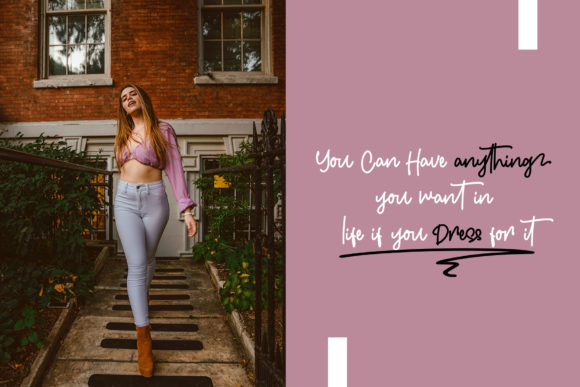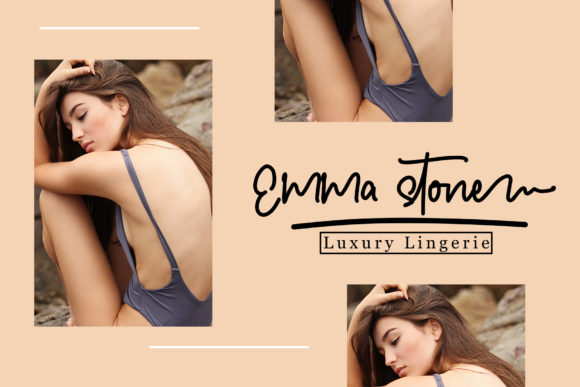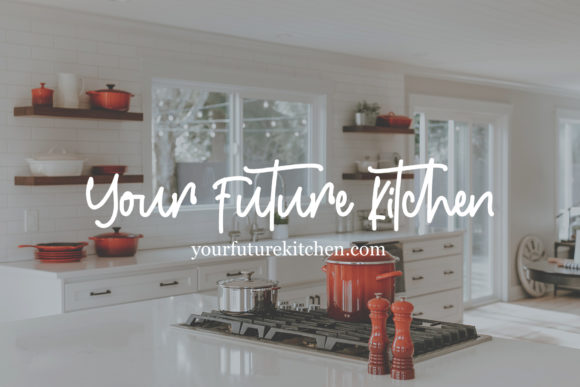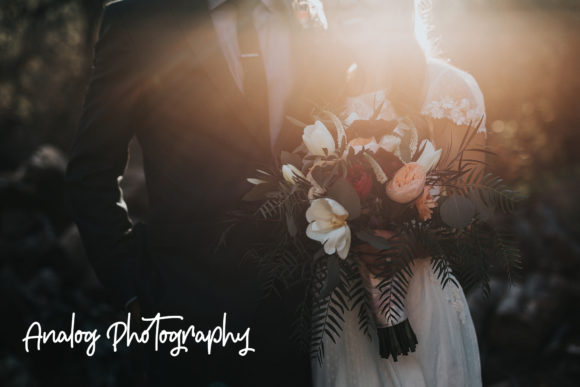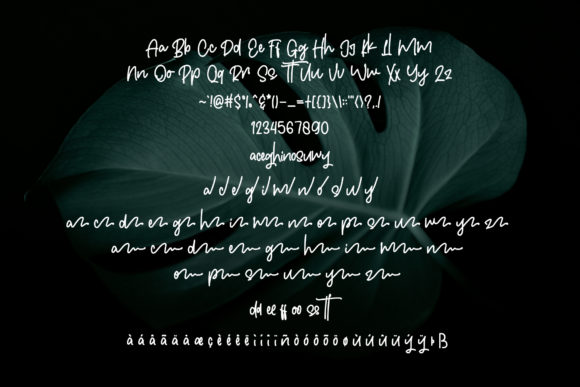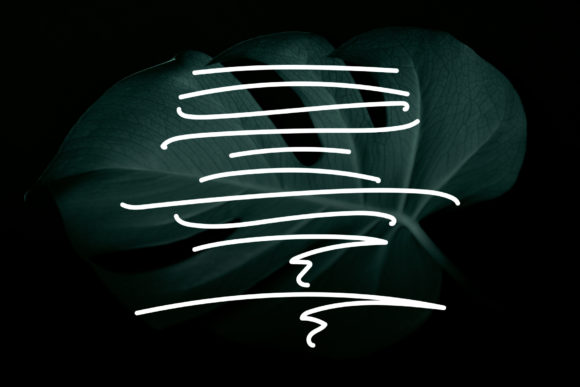
Introducing Colintha Font: The Sweet and Cool Handwritten Font You Need
Are you tired of using the same old fonts in your designs? Do you want to add a touch of uniqueness and personality to your projects? Look no further than Colintha Font, a sweet and cool handwritten font that’s sure to inspire your creativity. In this article, we’ll dive into the world of Colintha Font, exploring its features, benefits, and uses, and why it’s a must-have for designers and crafters alike.
What is Colintha Font?
Colintha Font is a modern, handwritten font designed to add a touch of elegance and sophistication to your designs. Its unique style is characterized by smooth, flowing lines and a distinctive flair that’s both sweet and cool. Whether you’re working on a branding project, a craft, or a digital design, Colintha Font is the perfect choice for adding a personal touch.
Key Features of Colintha Font
- Unique Style: Colintha Font boasts a one-of-a-kind design that’s sure to make your projects stand out from the crowd.
- Handwritten Look: The font’s handwritten style adds a touch of warmth and personality to your designs, making them more relatable and engaging.
- Contemporary Look: Colintha Font’s modern design ensures that your projects look fresh and up-to-date, perfect for brands and businesses looking to make a statement.
- Versatile: This font is perfect for a wide range of projects, from digital designs and branding to crafting and DIY projects.
Benefits of Using Colintha Font
So, why should you choose Colintha Font for your next project? Here are just a few benefits of using this amazing font:
- Adds Personality: Colintha Font’s unique style allows you to add a touch of personality to your designs, making them more engaging and memorable.
- Enhances Creativity: The font’s modern design and smooth lines inspire creativity and encourage you to think outside the box.
- Perfect for Branding: Colintha Font is ideal for branding projects, as it helps to create a unique and recognizable identity for your business or brand.
- Easy to Read: Despite its unique style, Colintha Font is easy to read, making it perfect for body text and other applications where legibility is key.
Uses of Colintha Font
Colintha Font is a versatile font that can be used in a wide range of projects, including:
- Digital Designs: Use Colintha Font in your digital designs, such as social media graphics, blog posts, and website headers.
- Branding and Identity: Create a unique and recognizable brand identity with Colintha Font, perfect for logos, business cards, and letterheads.
- Crafting and DIY Projects: Add a personal touch to your crafting and DIY projects, such as handmade cards, gift tags, and scrapbooking.
- Print Designs: Use Colintha Font in your print designs, such as brochures, flyers, and posters.
Tips for Using Colintha Font
Here are a few tips for getting the most out of Colintha Font:
- Experiment with Colors: Try pairing Colintha Font with different colors to create a unique and eye-catching design.
- Mix and Match: Combine Colintha Font with other fonts to create a unique and interesting design.
- Use it for Headings: Use Colintha Font for headings and titles to add a touch of elegance and sophistication to your designs.
In conclusion, Colintha Font is a sweet and cool handwritten font that’s perfect for designers and crafters looking to add a touch of uniqueness and personality to their projects. With its modern design, smooth lines, and distinctive flair, Colintha Font is sure to inspire your creativity and take your designs to the next level. So why wait? Get inspired by Colintha Font today and see the difference it can make in your designs!